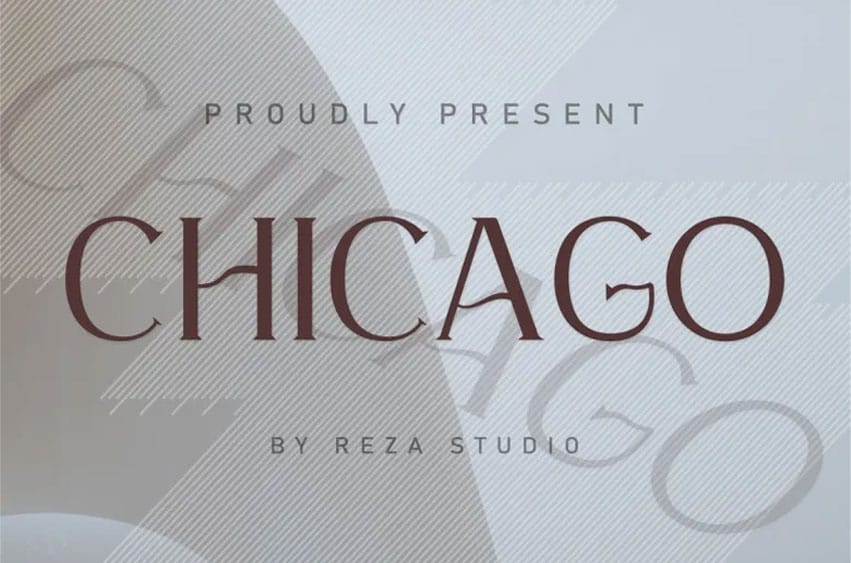
Chicago Modern Serif Font is an elegant modern serif font featuring stunning ligatures, alternate glyphs, ornamentation, multilingual support and support for multiple languages. A truly versatile font suitable for small to large size font applications alike!
Ideal for use in editing projects, logo design, clothing branding packaging for products magazines headers for magazines or as an elegant text overlay on any image background.